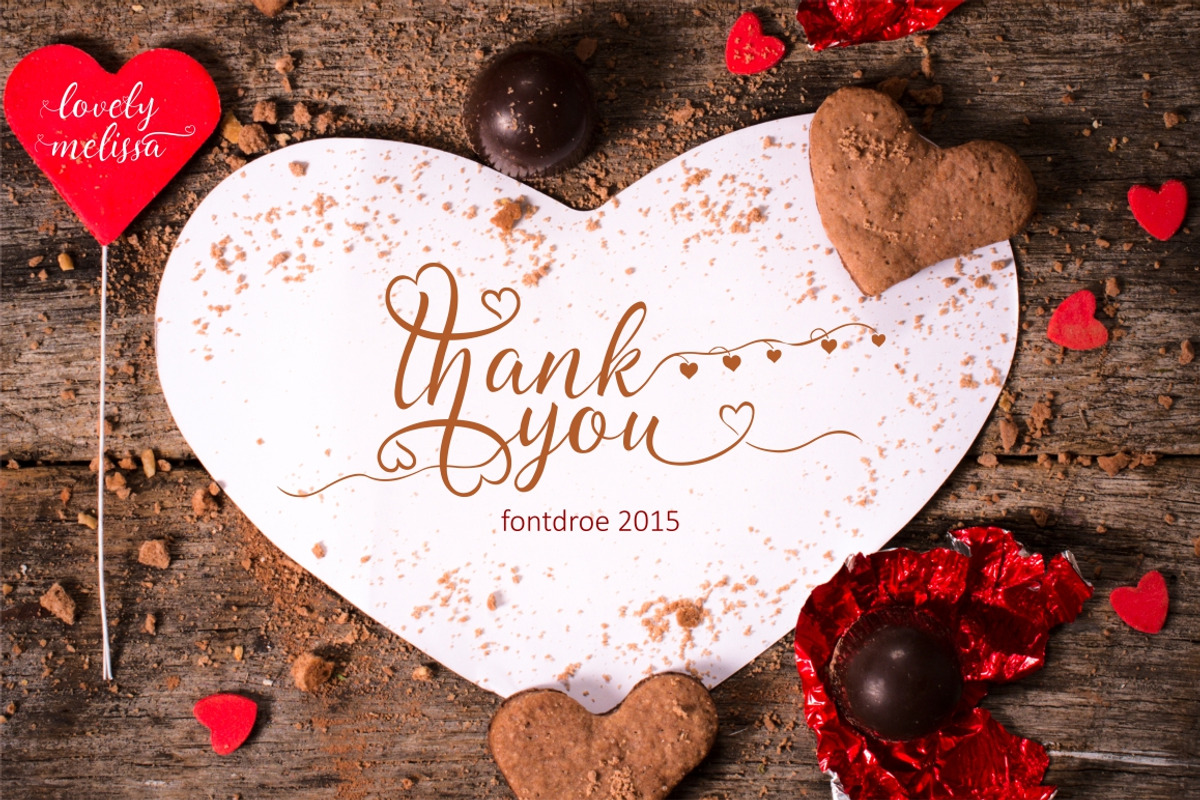
Lovely Melissa
is a new varian of handmade script typeface. present to you to complete your colections of script font. This typeface has been enriches with additional alternates characters up to 1372 glyphs. Do hope helpfully to catch any design soul. finally, no word to say than "Go success and enjoy it".
Main Features:
- Titling Alternate
- Stylistic Alternate
- Stylistic Set 01-09
- Contextual Alternate
- Discretionary ligature
- Contextual ligature
- Swash Variant
- Initial Form
- Medial Form
- Terminal Form
- Capital Space
- Numerator
- Proportional Lining
- Tabulator Oldstyle
- Superscript
- Subscript